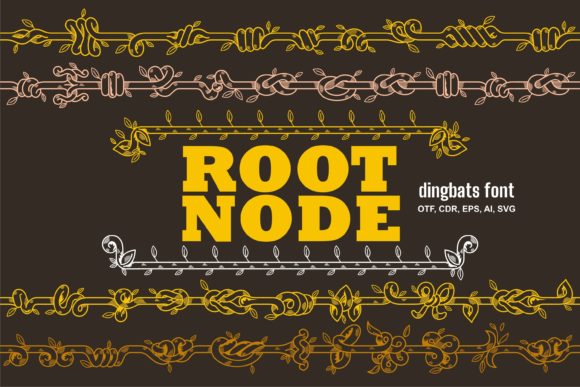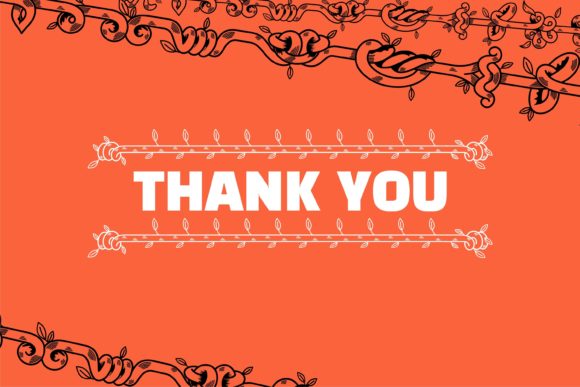
ROOT NODE Font
Root Node is a truly stunning dingbats font that offers a delightful collection of frames. With its charming and intricate designs, this font provides you with a wide range of creative possibilities to craft beautiful root node frames.
Whether you’re working on digital designs, print materials, or any other creative project, Root Node can add a touch of elegance and sophistication. The frames generated by this font are not only visually appealing but also versatile, allowing you to showcase your content in a captivating and visually engaging way.
The intricate details and unique shapes of the frames in Root Node make them stand out and grab attention. Whether you’re creating posters, invitations, social media graphics, or any other design where you want to highlight a specific element or content, these frames can serve as eye-catching focal points.
The charm of Root Node lies in its ability to add a touch of whimsy and elegance to your designs. The frames created by this font can effortlessly transform plain and ordinary content into something visually captivating and aesthetically pleasing.
To access the various frames in Root Node, simply type the corresponding letters or characters on your keyboard. Experiment with different sizes, orientations, and combinations to explore the full range of possibilities and find the perfect frame for your project.
Whether you’re designing for personal or professional purposes, Root Node can enhance your creations with its gorgeous frames. From adding a touch of vintage flair to creating a modern and stylish look, this font gives you the creative freedom to elevate your designs and make them truly stand out.
In conclusion, Root Node is a gorgeous dingbats font that provides a wonderful set of frames for your creative projects. With its charming and versatile designs, this font allows you to unleash your creativity and create stunning root node frames that will impress and delight your audience.